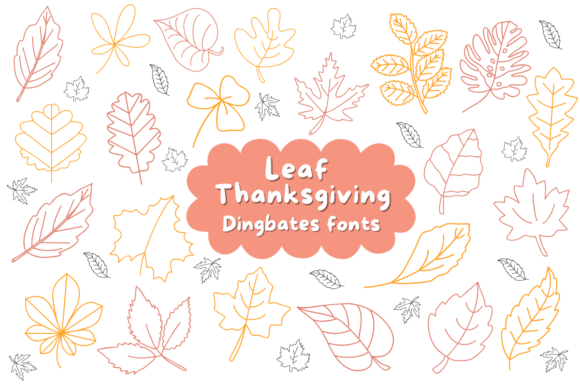
Leaf Thanksgiving Font: A Fun and Creative Dingbat Font for Autumn-Themed Designs
As the leaves change colors and the air grows crisper, our minds turn to the warmth and coziness of the autumn season. For designers and crafters, this means a fresh opportunity to create seasonal projects that capture the essence of fall. One of the most effective ways to add a natural touch to your designs is with the Leaf Thanksgiving Font, a fun and creative dingbat font that features different kinds of leaves.
What is Leaf Thanksgiving Font?
Leaf Thanksgiving Font is a unique and charming dingbat font that replaces traditional letters with various leaf designs. Each character in the font showcases a distinct and intricate leaf pattern, perfect for adding a touch of the outdoors to your autumn-themed projects. Whether you’re creating invitations, decorations, or crafts, this font is sure to bring a sense of natural beauty to your work.
Key Features of Leaf Thanksgiving Font
- Unique Leaf Designs: The font features a wide variety of leaf designs, each one carefully crafted to showcase the intricate details of nature.
- Dingbat Font: Unlike traditional fonts, Leaf Thanksgiving Font uses images of leaves instead of letters, making it perfect for adding visual interest to your designs.
- Autumn-Themed: The font’s leaf designs are perfect for autumn-themed projects, but can also be used in nature-inspired crafts and designs throughout the year.
Uses for Leaf Thanksgiving Font
Leaf Thanksgiving Font is a versatile font that can be used in a variety of creative projects. Here are a few ideas to get you started:
- Autumn Invitations: Add a touch of natural beauty to your invitations with the Leaf Thanksgiving Font. Perfect for fall parties, harvest festivals, and Thanksgiving gatherings.
- Fall Decorations: Use the font to create beautiful fall-themed decorations, such as garlands, banners, and signs.
- Nature-Inspired Crafts: The font is perfect for nature-inspired crafts, such as scrapbooking, card making, and paper crafting.
- Social Media Graphics: Add a seasonal touch to your social media graphics with the Leaf Thanksgiving Font. Perfect for autumn-themed posts and promotions.
Tips for Using Leaf Thanksgiving Font
Here are a few tips for getting the most out of Leaf Thanksgiving Font:
- Experiment with Colors: The font’s leaf designs look great in a variety of colors, from warm autumn tones to bright and bold hues.
- Mix and Match: Combine the Leaf Thanksgiving Font with other fonts and design elements to create unique and eye-catching designs.
- Use in Combination with Images: The font pairs perfectly with images of leaves, trees, and other natural elements.
Benefits of Using Leaf Thanksgiving Font
There are many benefits to using Leaf Thanksgiving Font in your designs. Here are a few:
- Adds a Natural Touch: The font’s leaf designs add a natural and organic touch to your designs, perfect for autumn-themed projects.
- Unique and Creative: The font’s unique leaf designs will set your designs apart from the crowd and add a creative touch.
Where to Use Leaf Thanksgiving Font
Leaf Thanksgiving Font can be used in a variety of contexts, both online and offline. Here are a few ideas:
- Digital Designs: Use the font in digital designs, such as social media graphics, blog posts, and email marketing campaigns.
- Print Designs: The font is perfect for print designs, such as invitations, flyers, and brochures.
- Crafts: Use the font in nature-inspired crafts, such as scrapbooking, card making, and paper crafting.
Leaf Thanksgiving Font is a fun and creative dingbat font that features different kinds of leaves. With its unique leaf designs and easy-to-use format, it’s perfect for adding a natural touch to your autumn-themed designs. Whether you’re a designer, crafter, or DIY enthusiast, this font is sure to inspire your creativity and help you create beautiful and eye-catching designs.
- What is a dingbat font? A dingbat font is a type of font that uses images or symbols instead of traditional letters.